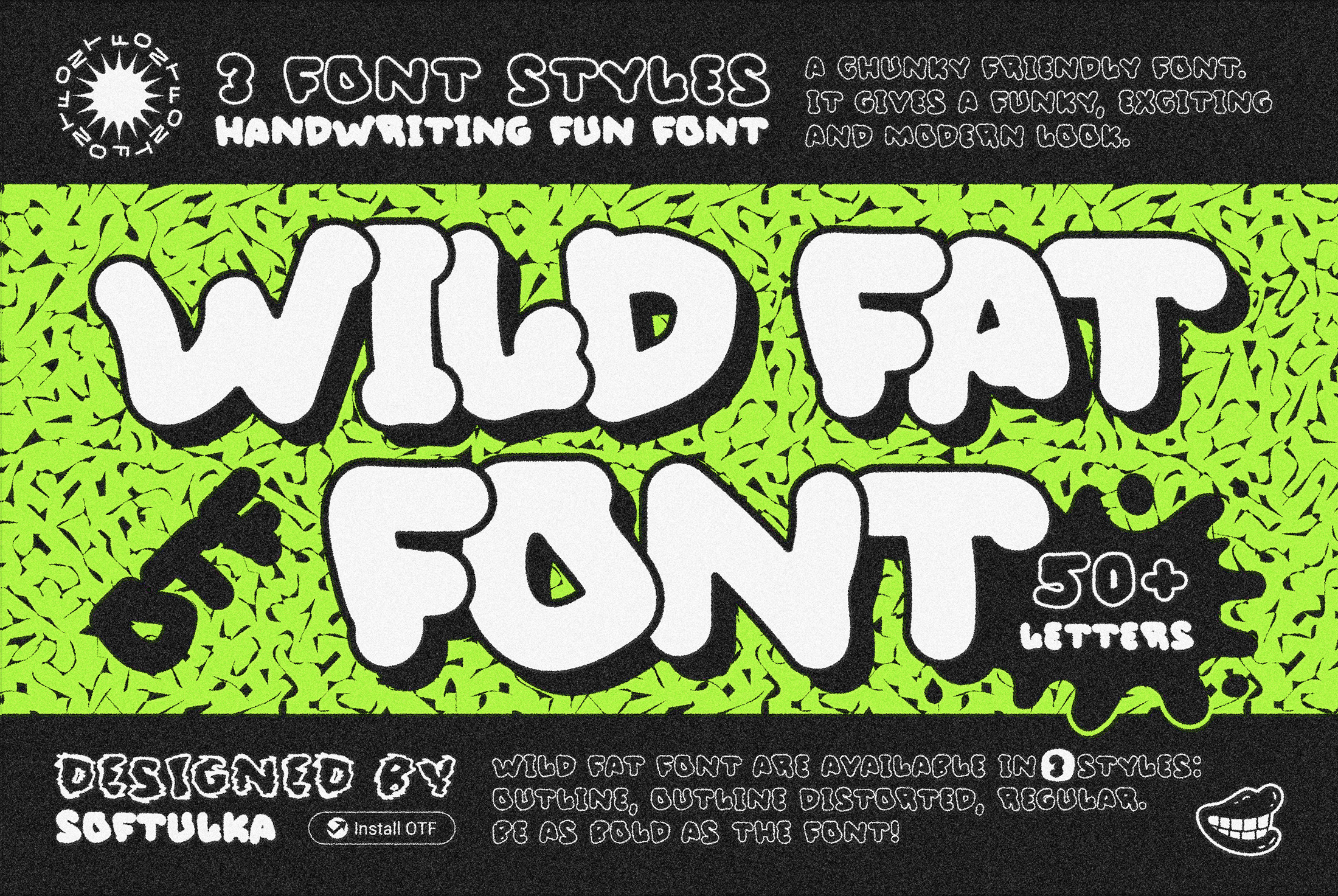
Wild Fat Font - playful handwriting experimental display typeface inspired by classic old cartoons. Wild Fat Font is available in 3 styles: outline, outline distorted, and regular. The regular style imitates writing with a fat marker. The Wild Fat Font works perfectly for bold titles, Festival posters, a graphic element for bright T-shit or hoodies, designs for Kids, graffiti concepts, modern aesthetics, fashion, any visual design project, and even backgrounds! This bulging and chunky font likes an experiment with spacing and different deformation. Please, don't hold back on your bold modern ideas!